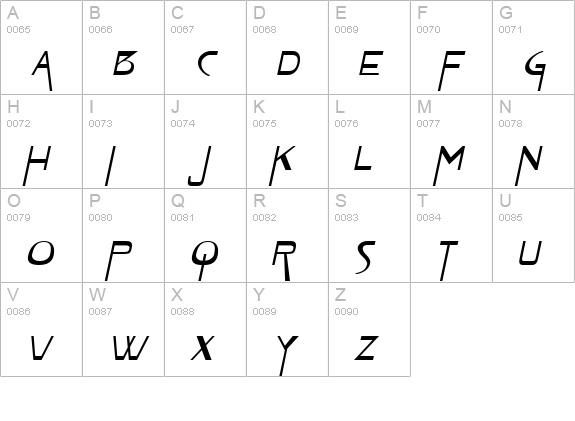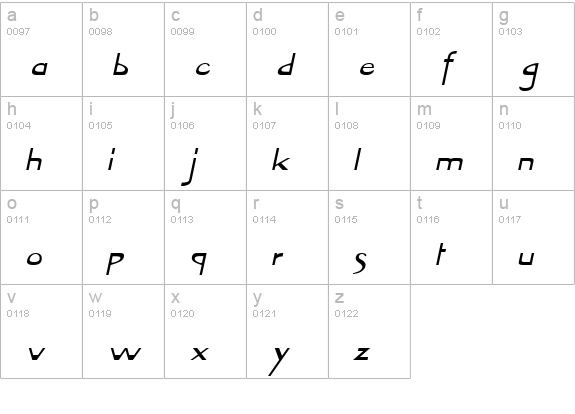
TabletExtended Italic Font Details
TabletExtended Italic is a distinctive, italic variant in the TabletExtended typeface family \xE2\x80\x94 well suited to design and typography projects.
TabletExtended Italic is a stunning and versatile font that exudes elegance and sophistication. Its sleek and slanted design adds a touch of modernity to any project, making it perfect for both professional and personal use. The italicized style of this font creates a sense of movement and fluidity, adding a dynamic element to your designs. With its extended letterforms, TabletExtended Italic offers a unique and eye-catching appearance. The elongated characters lend themselves well to headings, titles, and logos, allowing you to create impactful and memorable designs. Whether you're working on a website, a print publication, or any other creative project, TabletExtended Italic will certainly make a statement. One of the best things about TabletExtended Italic is that it is available for free download at FontsMarket.com. This means that you can easily access this exceptional font without any cost. It's a fantastic opportunity to enhance your design arsenal with a high-quality font that will elevate your work to new heights. The versatility of TabletExtended Italic allows it to be paired with a wide range of other fonts, making it an excellent choice for creating harmonious and visually appealing typography combinations. Its clean and legible appearance ensures that your message will be conveyed with clarity and style. Whether you're a graphic designer, a web developer, or an individual looking to add a touch of sophistication to your personal projects, TabletExtended Italic is a font that you don't want to miss. Download it for free at FontsMarket.com and take your designs to the next level.